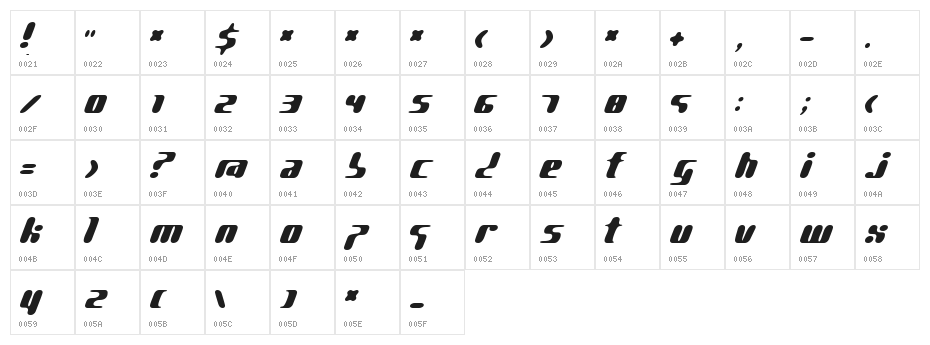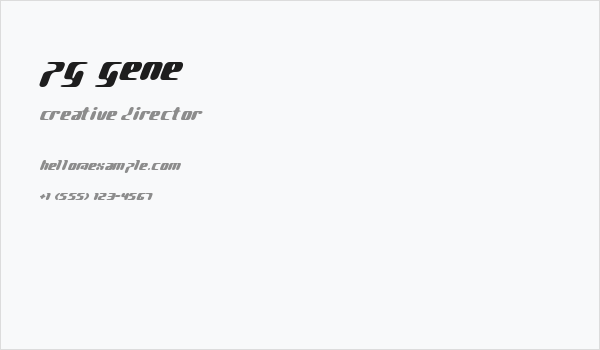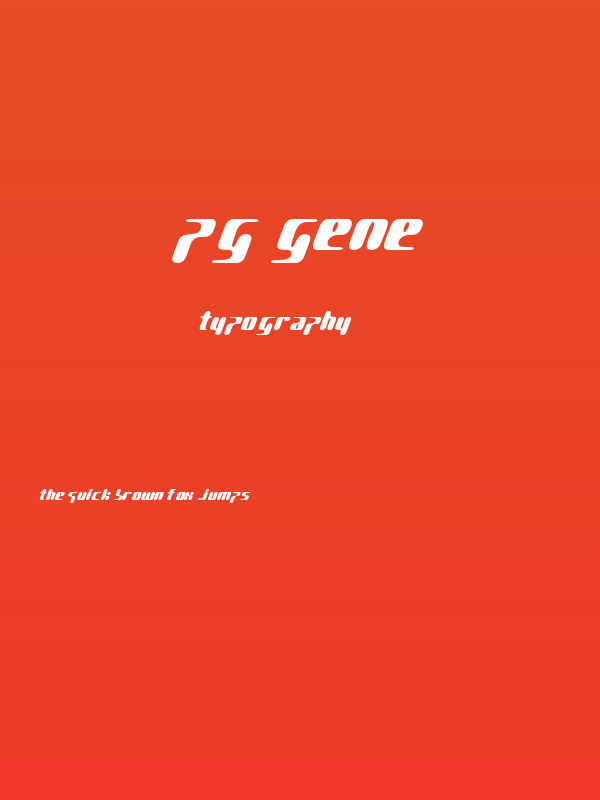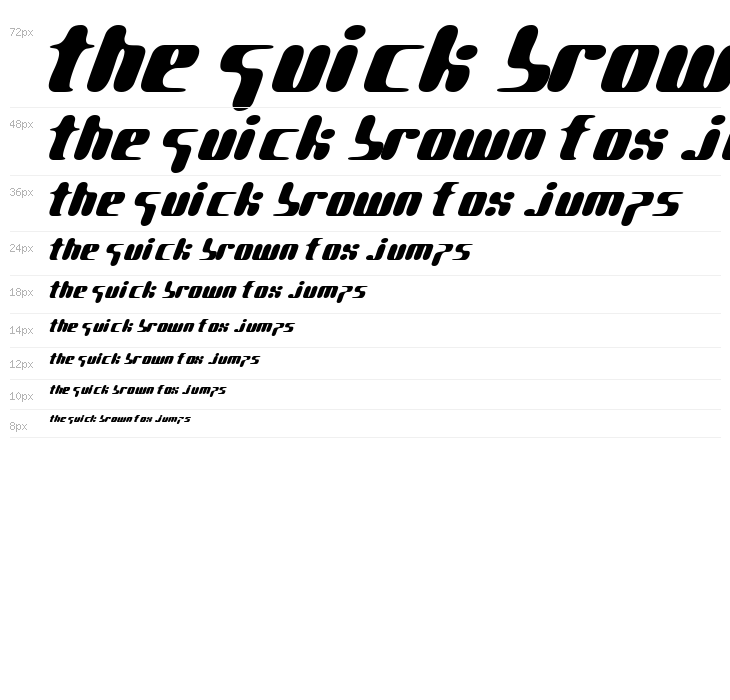
pg GENE Font
pg GENE Description
This font features a bold and dynamic style with a modern, futuristic flair. The characters are designed with a unique, flowing script that combines both sharp angles and smooth curves, creating a sense of movement and energy. The uppercase and lowercase letters maintain a consistent style, with the lowercase letters mirroring the uppercase in form and structure. The numerals are equally bold, with a distinctive design that complements the alphabetic characters. Special characters are included, maintaining the same stylistic approach, ensuring a cohesive look across all text elements. This font's strong visual impact makes it ideal for projects that require a standout, contemporary aesthetic.
| Use Case | Logos, Headlines, Posters |
| Proposed Projects | Ideal for branding, advertising, posters, and digital media where a modern, eye-catching look is desired. |